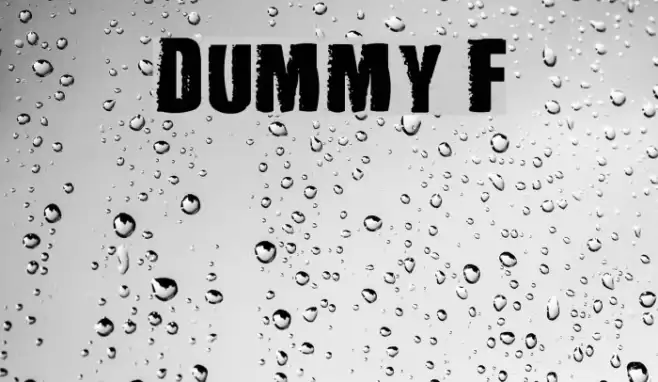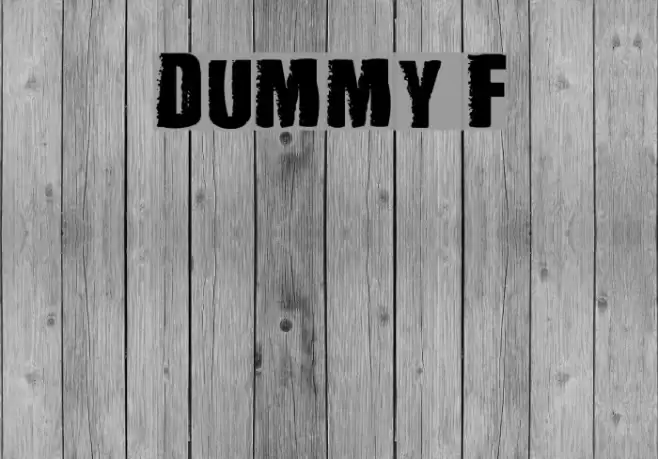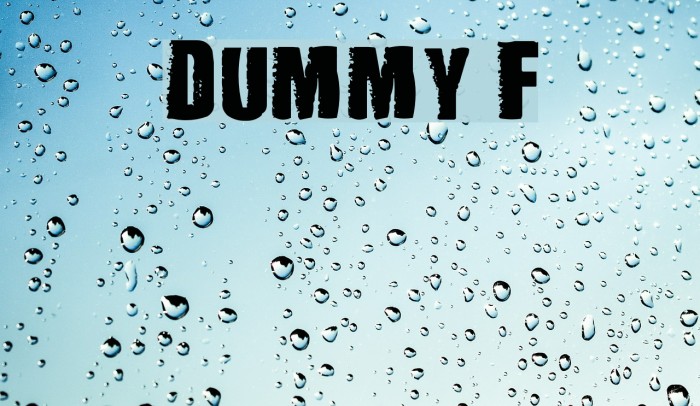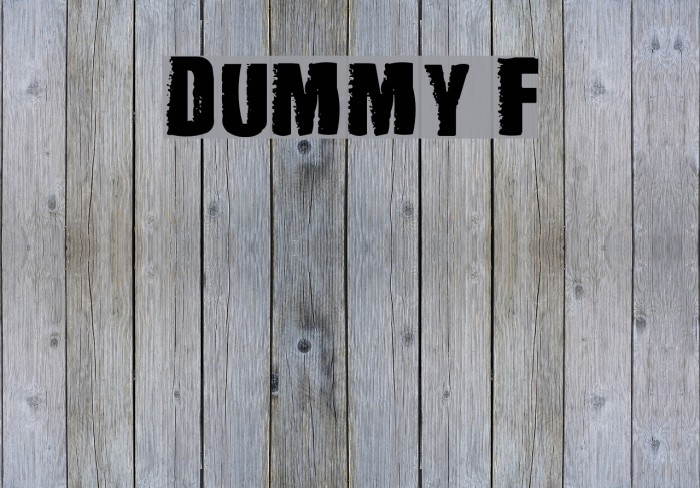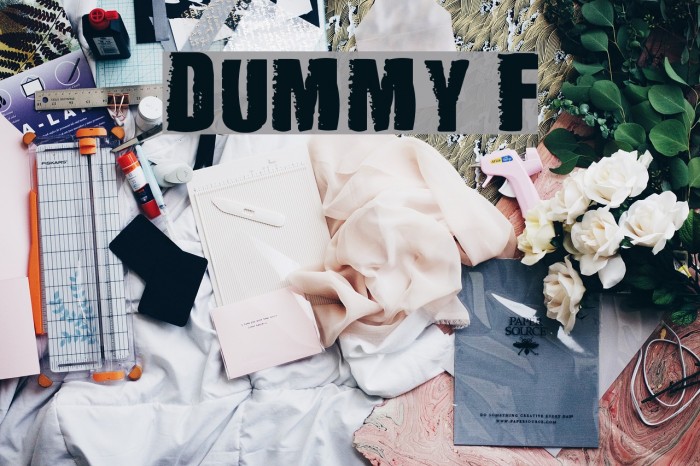
DUMMY Font
DUMMY Description
This font features a bold and distressed style, giving it a rugged and textured appearance. The uppercase letters are prominently displayed with a rough, grunge effect that adds character and depth. The boldness of the letters makes them stand out, while the distressed texture provides a vintage, worn look. This font is ideal for projects that require a strong, impactful visual statement, such as posters, album covers, or branding materials that aim to convey a sense of edginess or nostalgia.
A bold, distressed font with a rugged, textured appearance from Distorted Eroded fonts.
- Proposed Projects: Ideal for posters, album covers, and branding materials with an edgy or vintage theme.
- Overall Style: Vintage